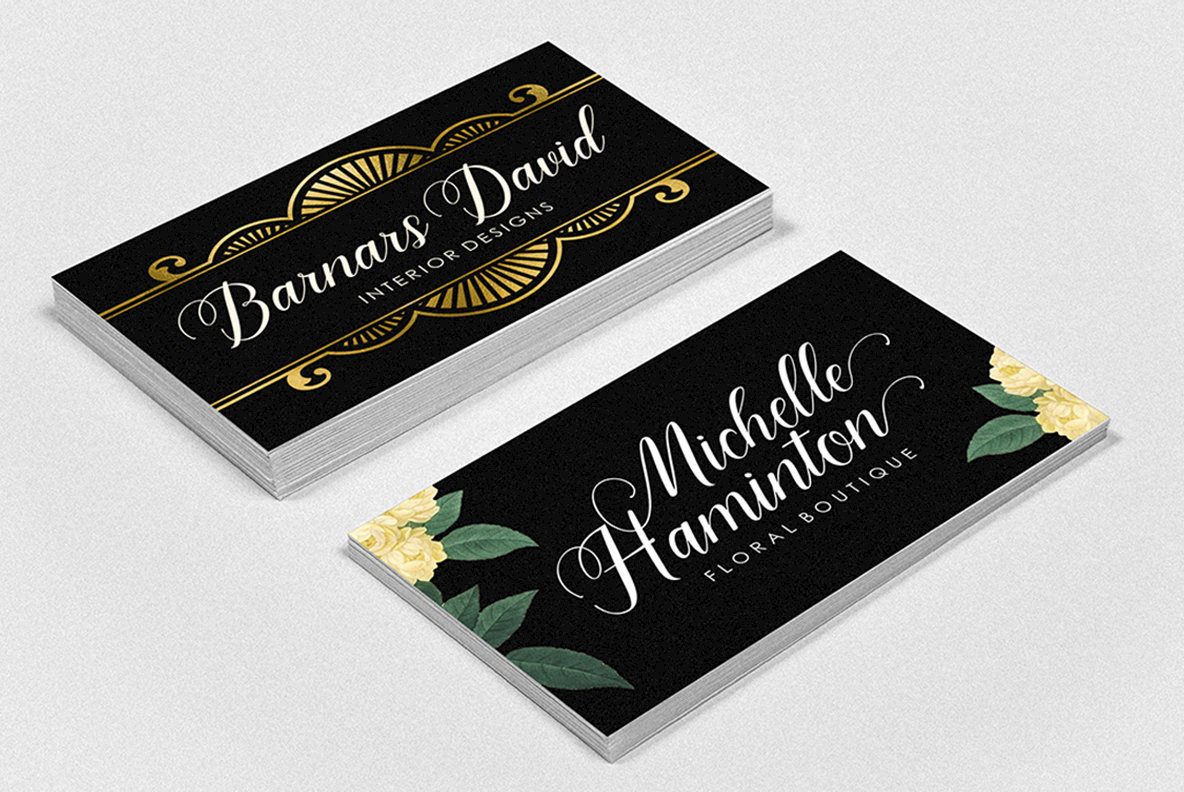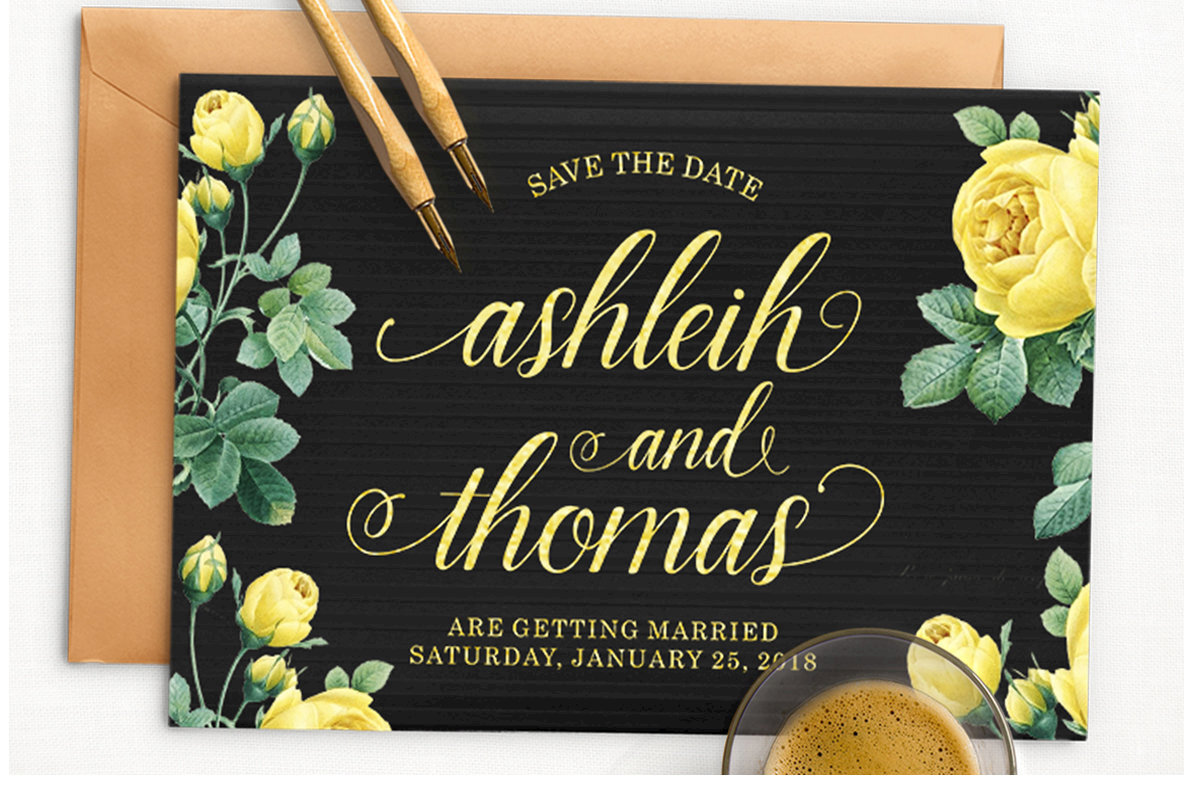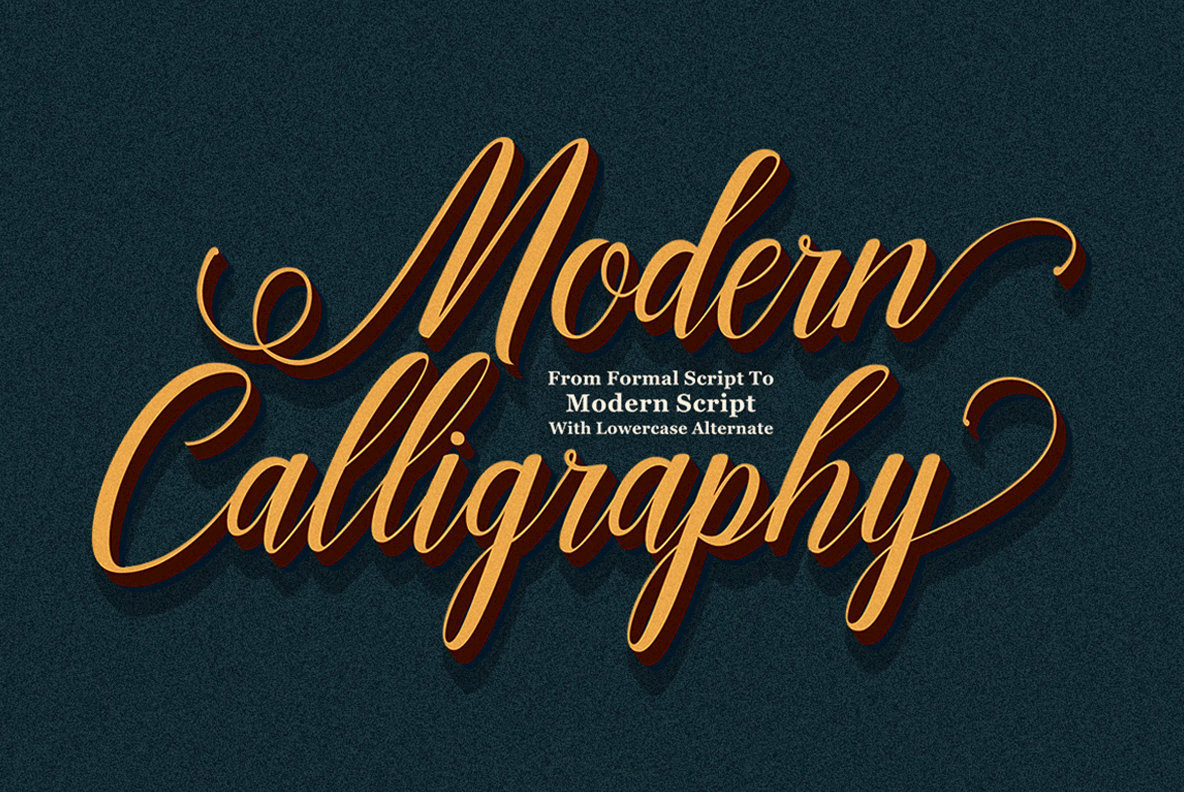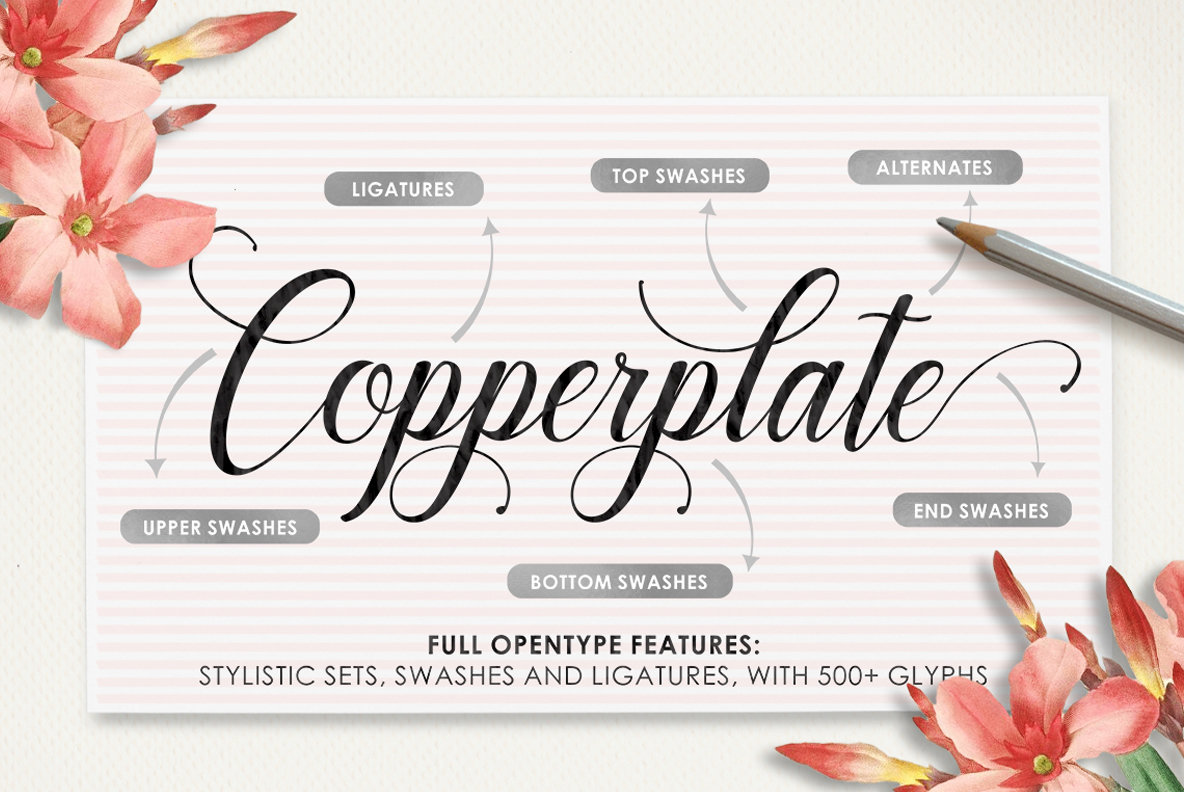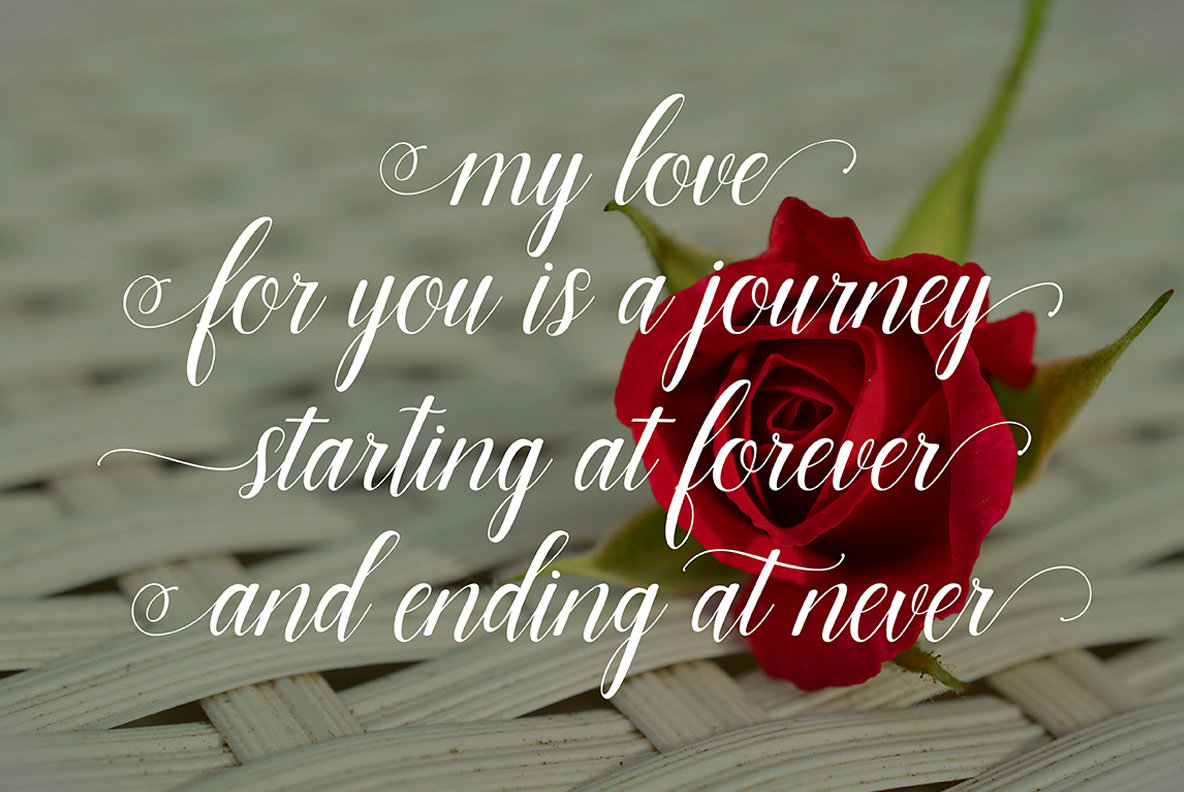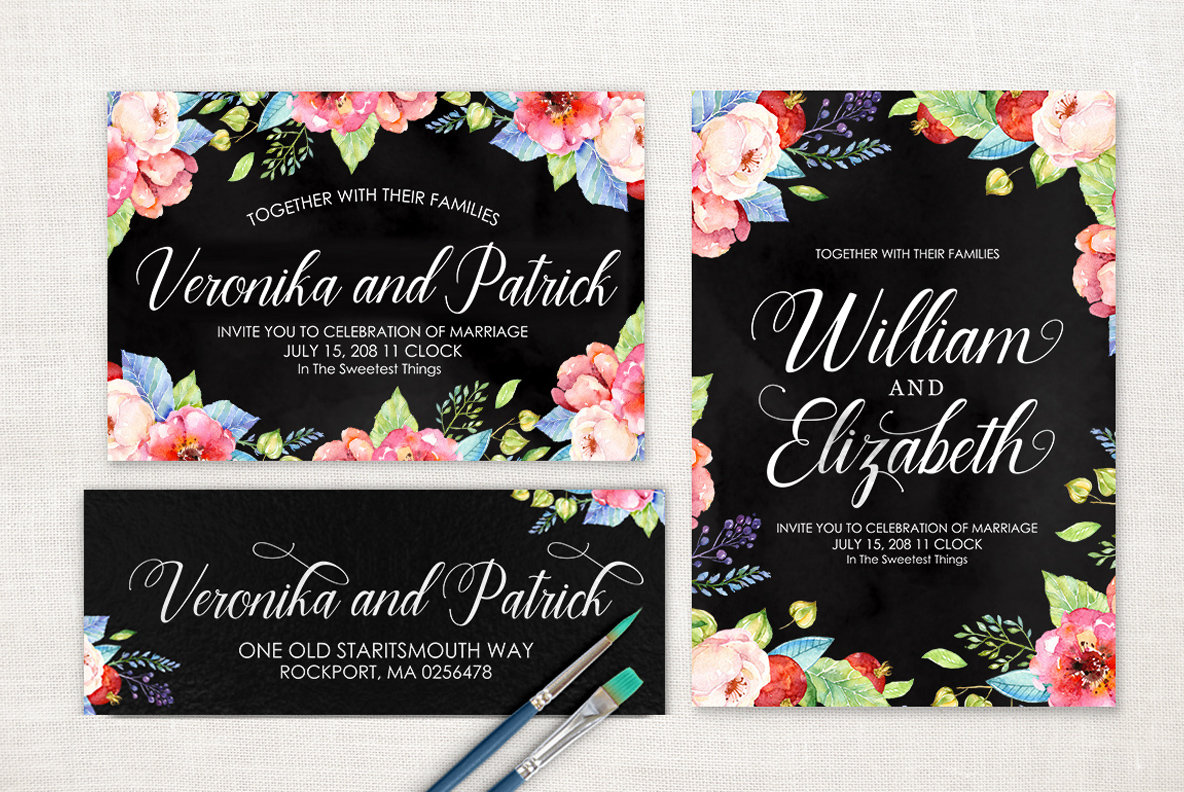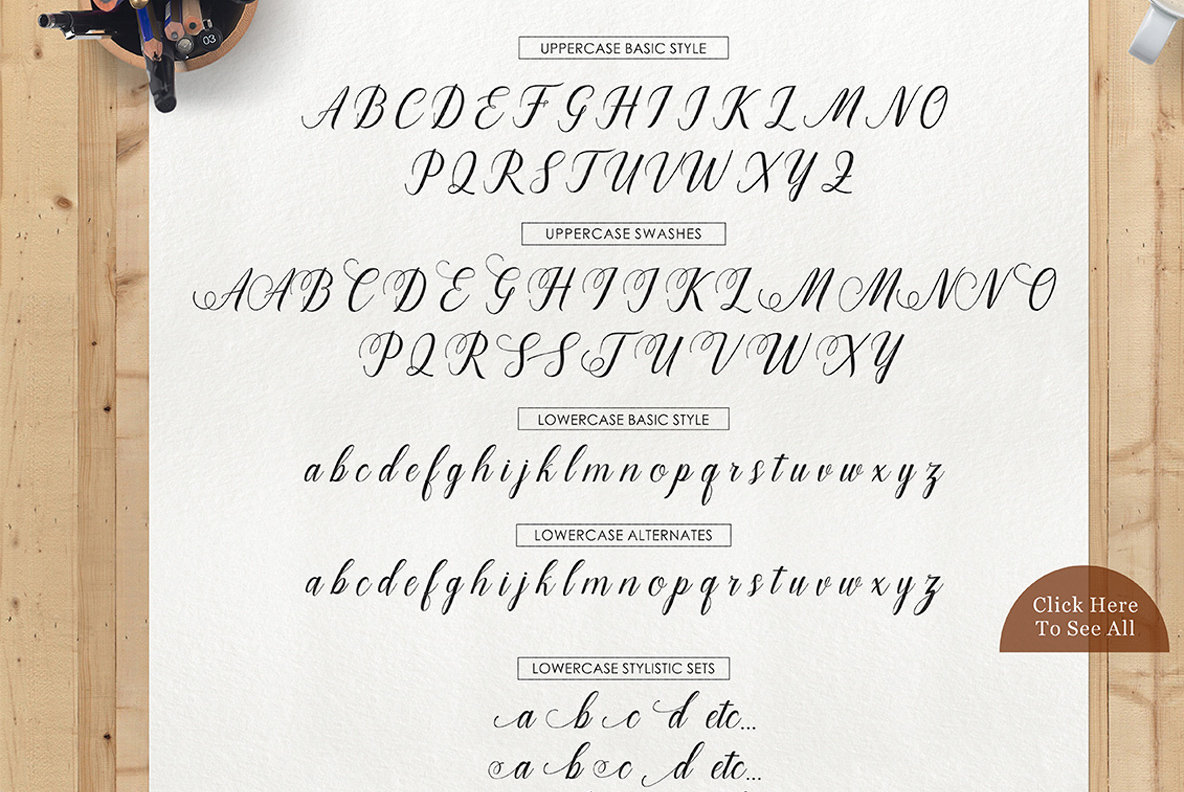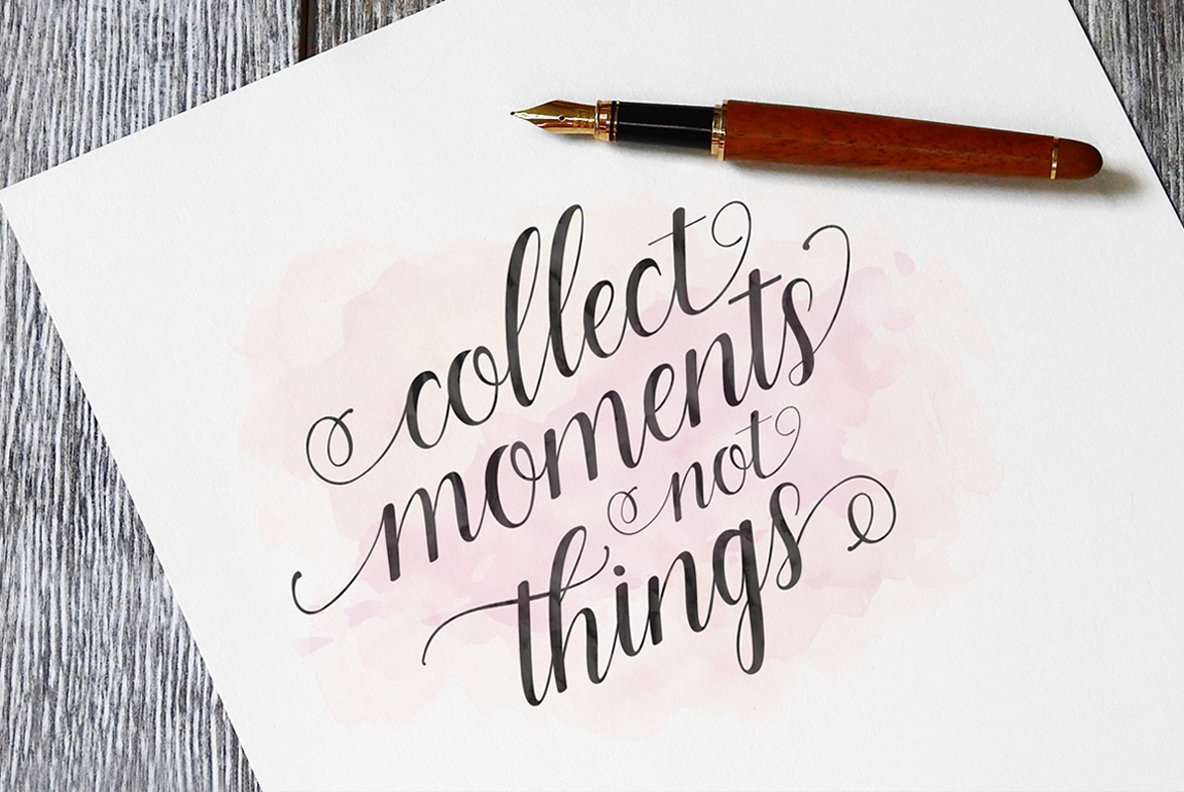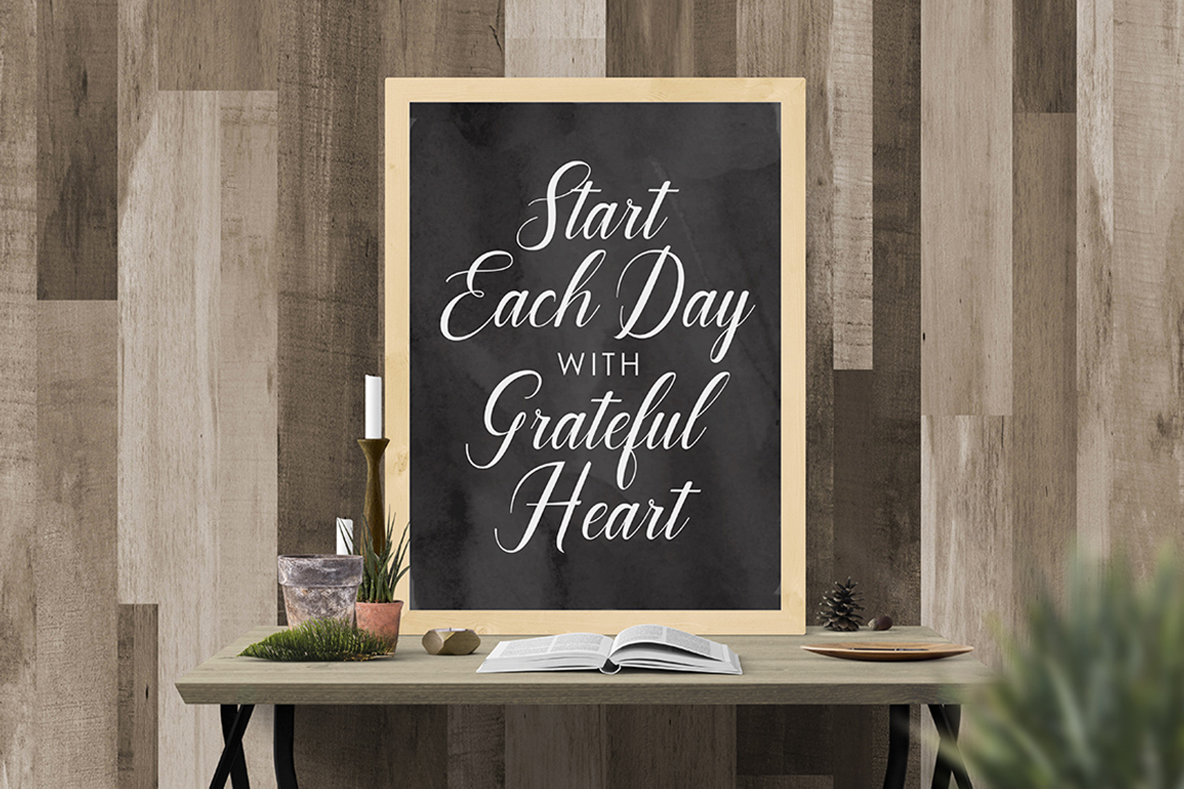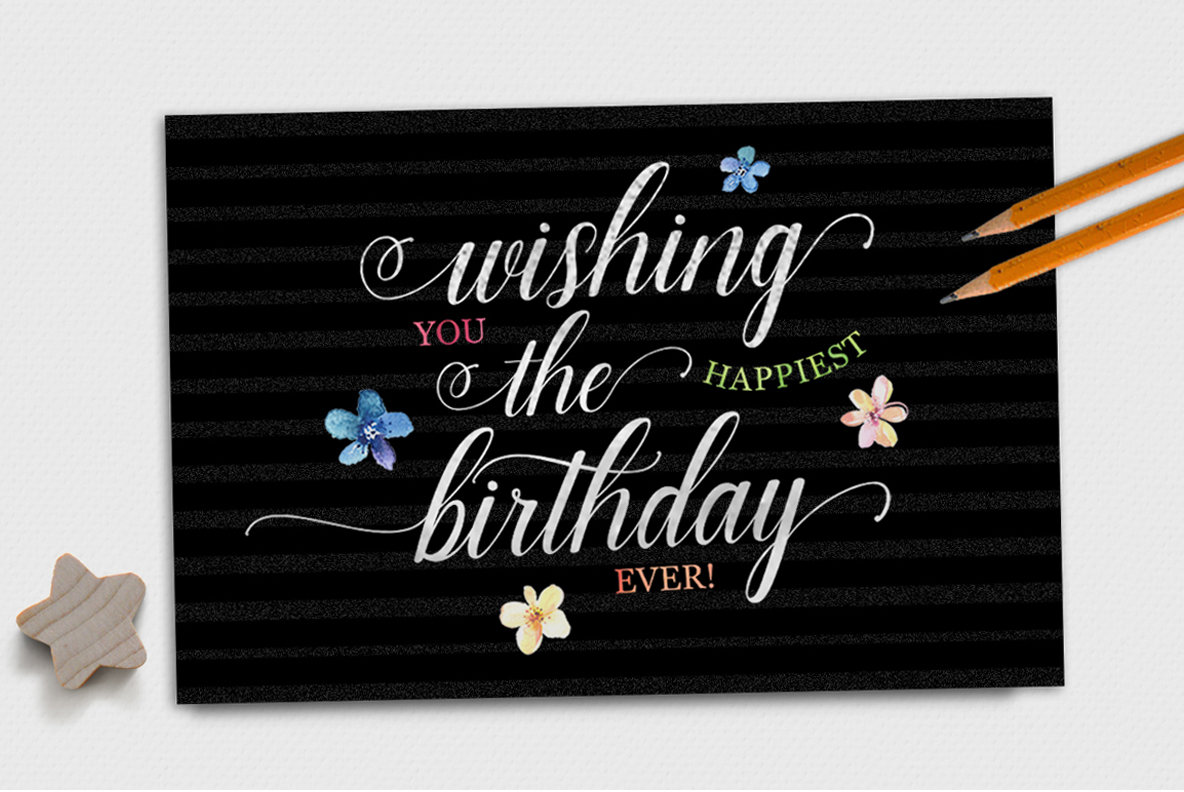
Marioline Font
Marioline is a handwritten typeface with timeless elegance, rooted in classic design. This script font exudes sophistication, making it ideal for applications in weddings, logo design, greeting cards, and branding projects. It also enhances print advertisements, quotes, signage, and magazine layouts with its distinctive style. Whether crafting a personal message or enhancing a professional project, Marioline provides a sophisticated and versatile typeface option.Marioline: Handwritten Script with a Classic Touch